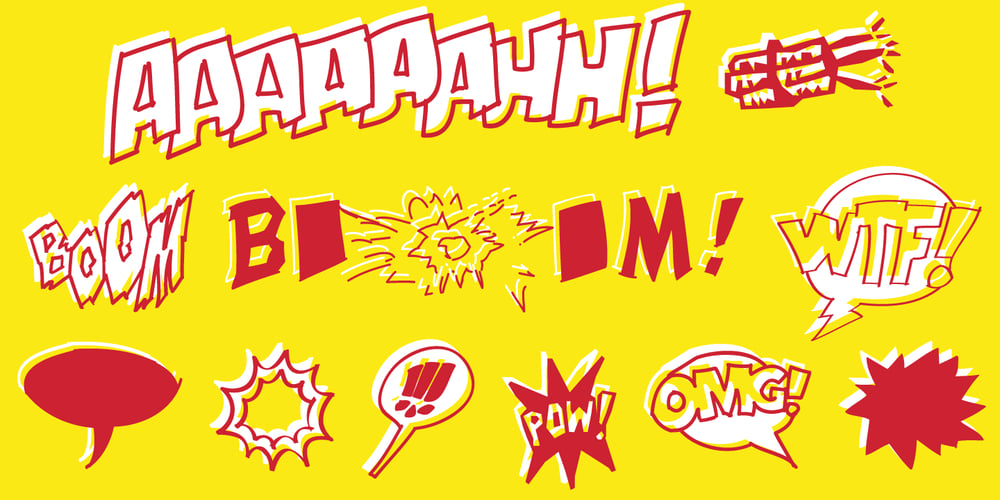
Boom Pang Pow Font Family was designed by Manuel Viergutz and published by TypoGraphicDesign. Boom Pang Pow contains 2 styles and family package options. The typeface Boom Pang Pow is designed from 2020 for the font foundry Typo Graphic Design by Manuel Viergutz. A collection of comic and pop art elements like Speech Bubbles Catch Words, Punctuation Symbols, Boom, Pow, Bang … with various layers for colouring.1 font-style (Comic) with 248 glyphs (Adobe Latin 1).For use in logos, magazines, posters, advertisement plus as webfont for decorative headlines. The font works best for display size.Have fun with this font & use the DEMO-FONT (with reduced glyph-set) FOR FREE!